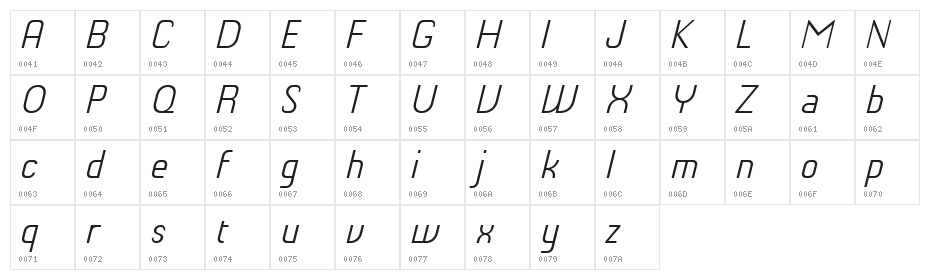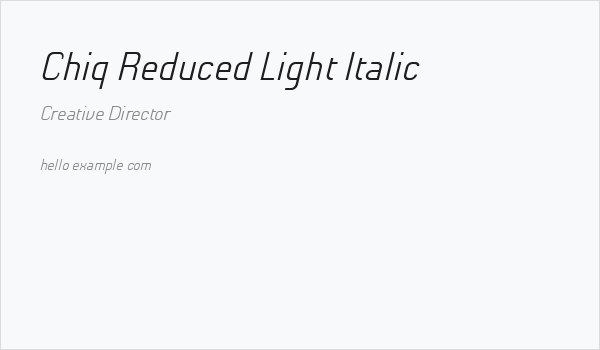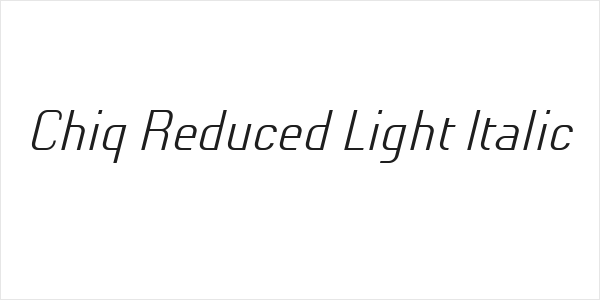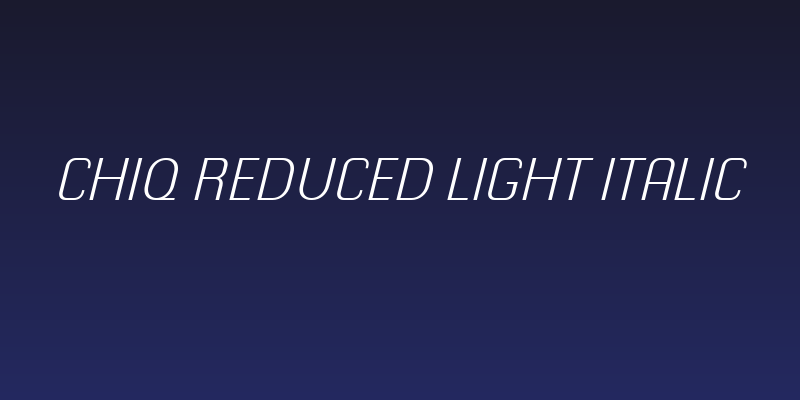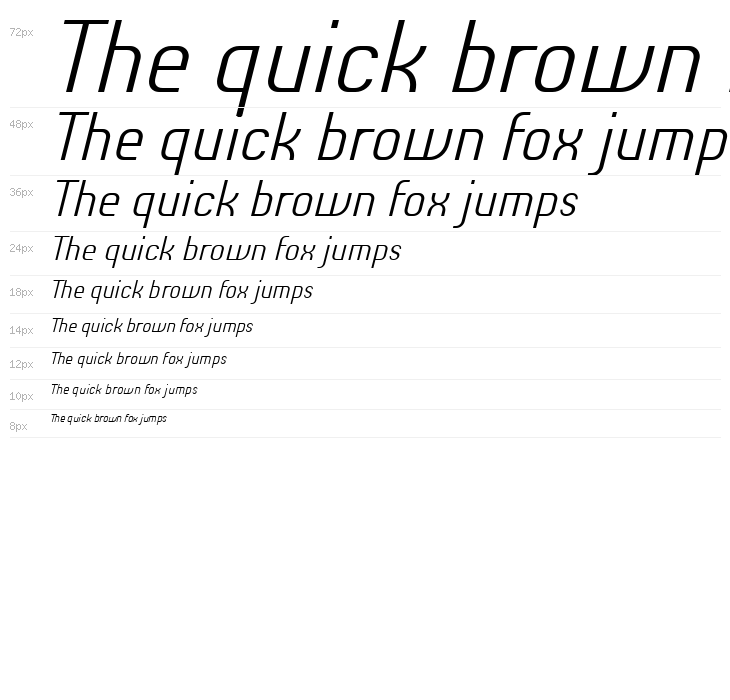
Chiq Reduced Light Italic Font
Chiq Reduced Light Italic Description
This font features a sleek and modern design with a light and airy feel. The characters are slightly condensed, giving it a streamlined appearance. The italic style adds a sense of motion and elegance, making it suitable for dynamic and contemporary designs. The strokes are consistent and smooth, with a medium contrast that enhances readability while maintaining a stylish look. The font's clean lines and geometric shapes contribute to its modern aesthetic, making it versatile for various design applications.
| Proposed Projects | Ideal for branding, editorial design, fashion magazines, and modern web design. |